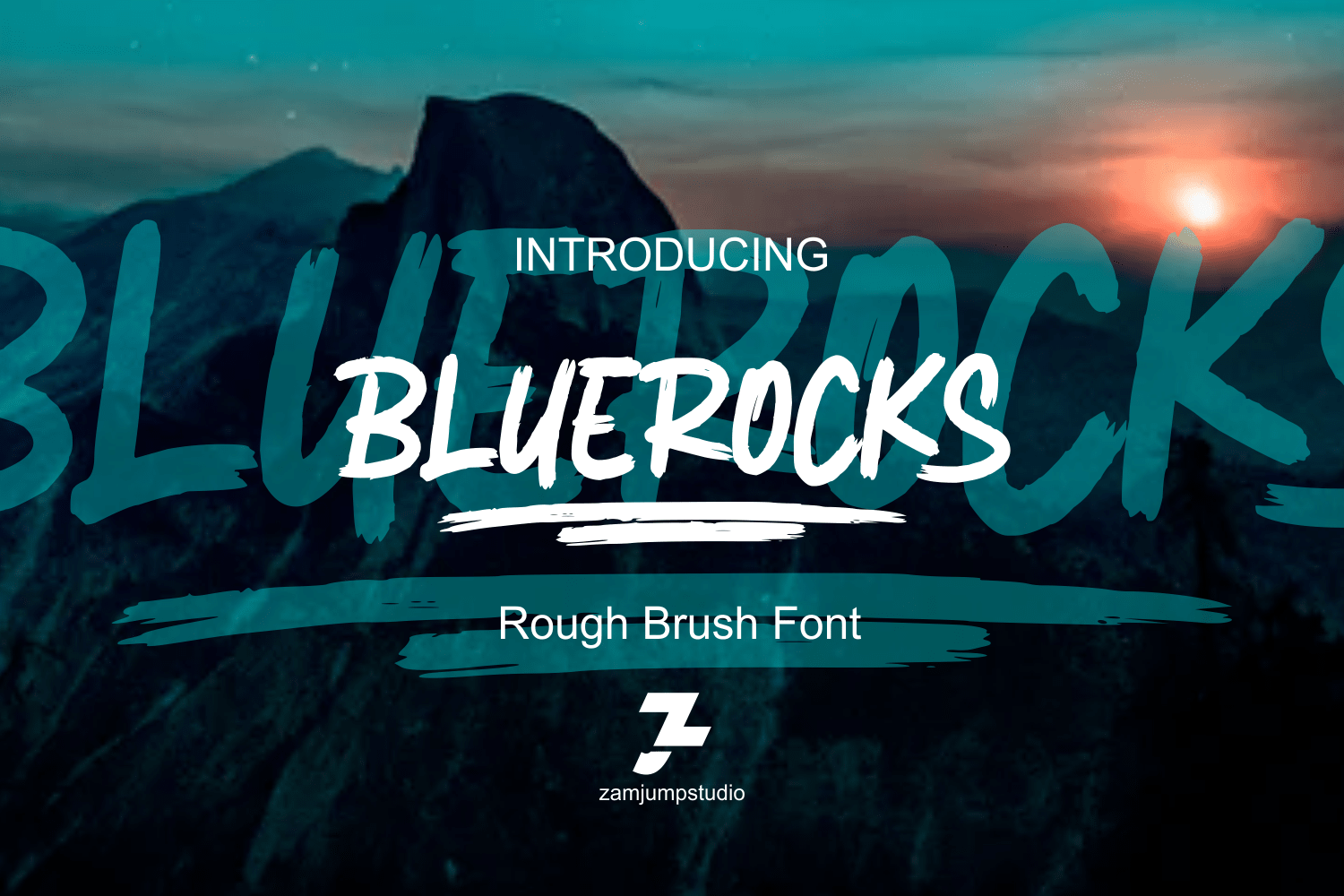
Bluerocks Font is perfect for rock climbing gear branding, outdoor adventure company logos, mountain resort signage, geological survey materials, rugged outdoor equipment packaging, wilderness survival guides, natural stone product labeling, extreme sports marketing campaigns, hiking trail documentation, and authentic outdoor lifestyle communications.
What makes Bluerocks Font so exciting is its extraordinary ability to capture the solid strength and timeless endurance of ancient rock formations through ruggedly crafted letterforms that seem chiseled from granite cliffs and weathered by centuries of wind, rain, and the patient persistence of natural forces that shape mountains. This font embodies the essence of geological permanence and outdoor resilience, featuring boldly structured characters that appear carved by the same elemental forces that create breathtaking canyons and towering peaks. The steadfast letter shapes create an atmosphere of unwavering stability and natural grandeur, making every word feel like it's been inscribed into the bedrock of the earth itself with the authority of geological time and the reliability of stone that has withstood millennia of storms.
The Bluerocks Font family includes Light, Regular, Medium, Bold, and Heavy weights, along with weathered and textured variations that echo natural stone patterns. Each style maintains the font's distinctive geological character while offering versatility for different outdoor applications, from subtle trail marker text to commanding mountain summit headlines that celebrate the majesty and challenging beauty of the natural world.
This powerful typeface brings authentic geological aesthetics to contemporary design projects. The Bluerocks Font Free Download provides designers with an exceptional tool to create memorable brand identities that communicate strength, durability, and connection to the natural world. Whether you're developing outdoor gear branding, designing wilderness adventure materials, or creating rugged lifestyle communications, this font delivers unmatched solidity and outdoor authenticity.
The masterfully crafted letterforms in Bluerocks Font feature angular structures and natural textures that mirror the complex formations created when tectonic forces meet artistic erosion, resulting in the sculptural beauty of rock faces that inspire climbers and geologists alike. Each character has been designed to maintain perfect readability while expressing the patient endurance and natural artistry that define the most spectacular geological formations. The font's distinctive personality makes it ideal for applications requiring genuine outdoor authority and geological credibility.
Outdoor industry professionals appreciate how Bluerocks Font effortlessly communicates reliability, natural beauty, and rugged performance while appealing to adventurers and nature enthusiasts seeking authentic outdoor experiences that honor both the challenge and the majesty of wild landscapes. The comprehensive character set includes outdoor symbols, geological elements, mountain decorations, and extensive international language support, ensuring global compatibility while preserving its distinctive rock-inspired identity. This makes it an invaluable resource for outdoor equipment manufacturers, adventure travel companies, geological organizations, and any enterprise seeking typography that embodies the enduring values of natural strength, environmental stewardship, and the kind of solid reliability that comes from understanding that the greatest adventures happen when humans learn to move respectfully through landscapes that have been millions of years in the making.